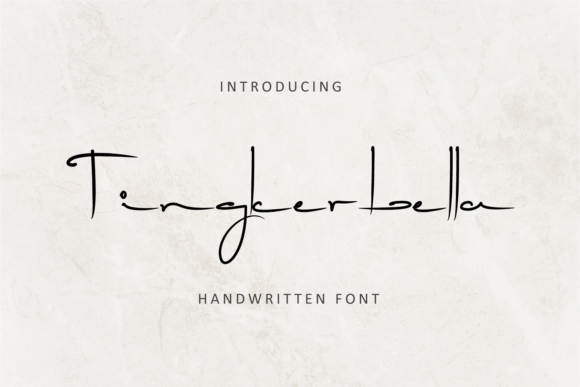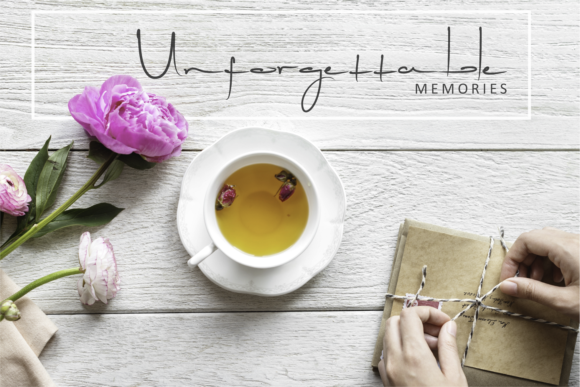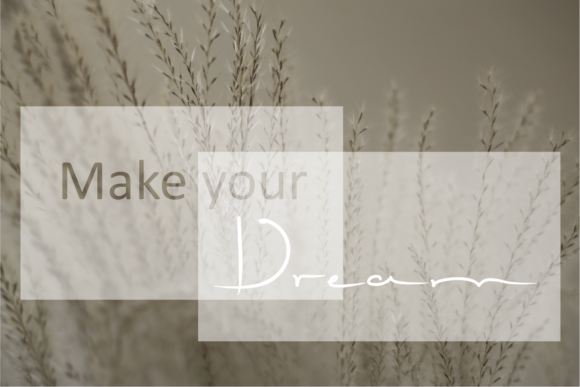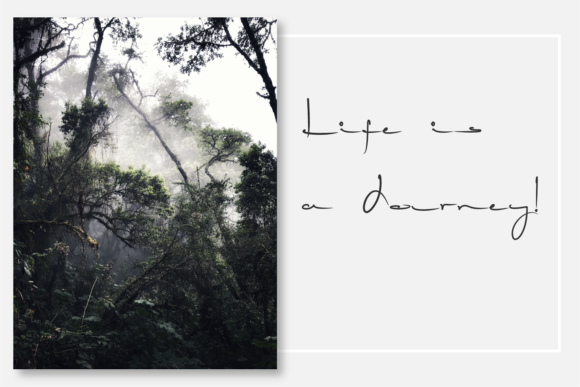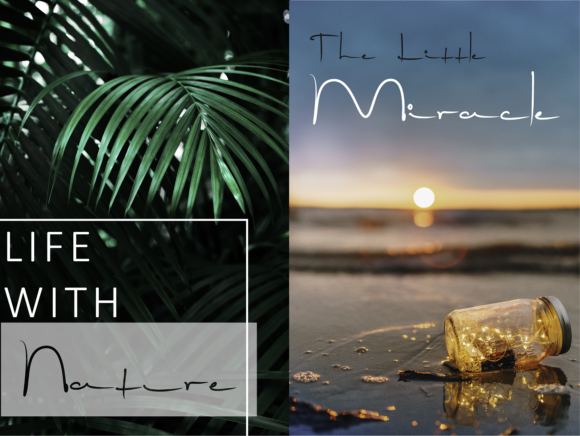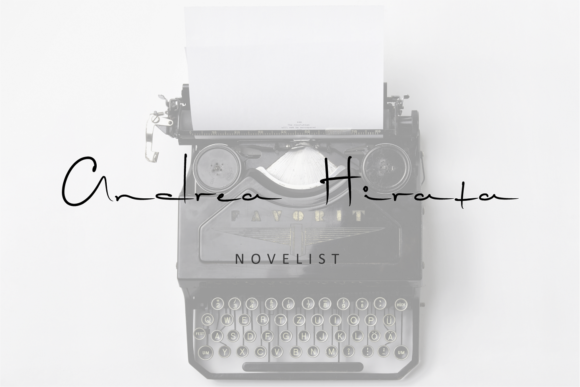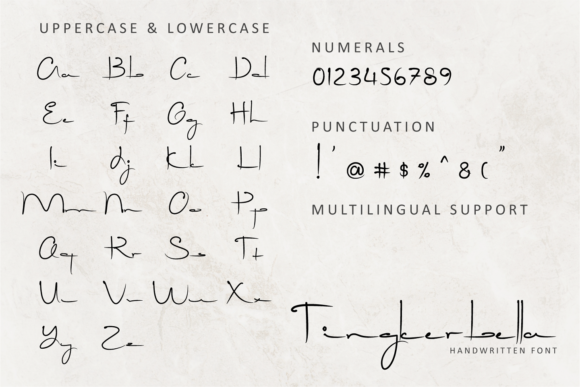
Tingkerbella Font
About Tingkerbella Font
The Tingkerbella is a beautiful script font. Its handwritten style will give any design a natural and handmade feel.